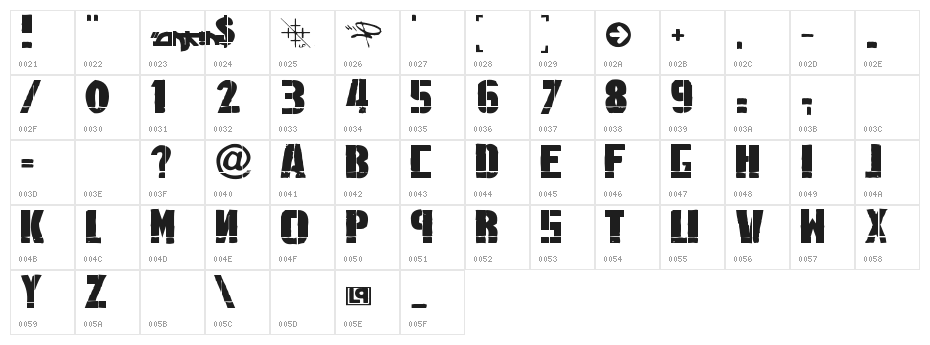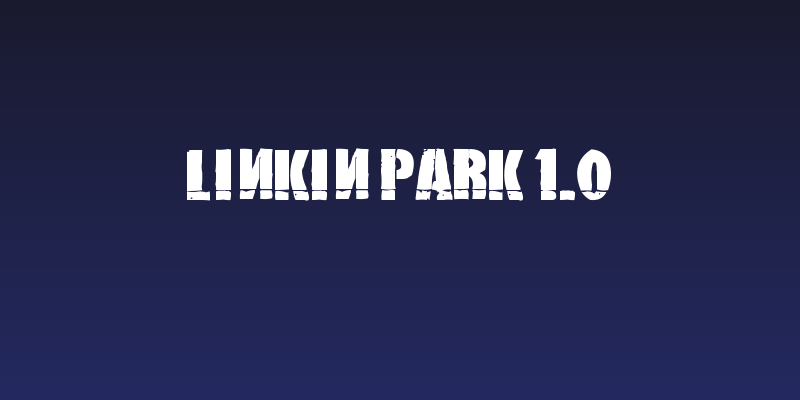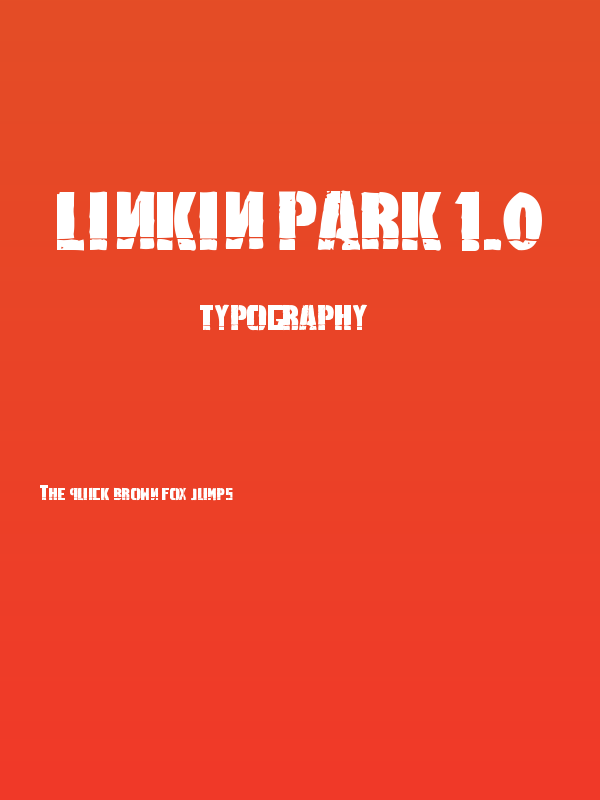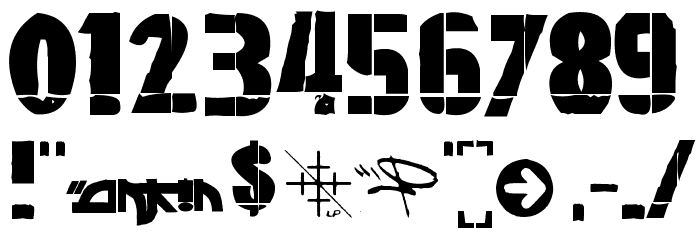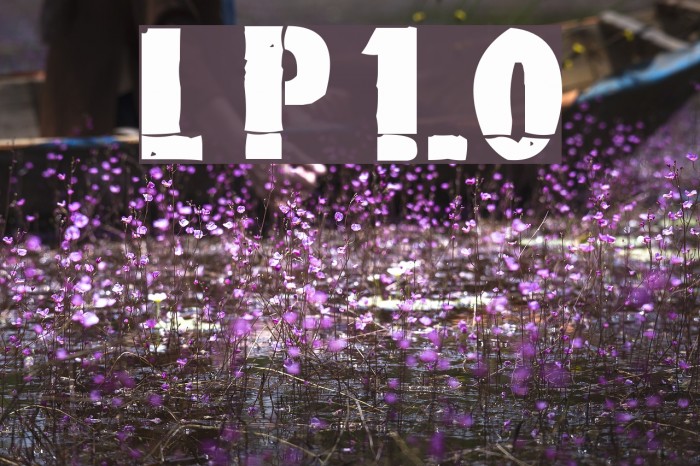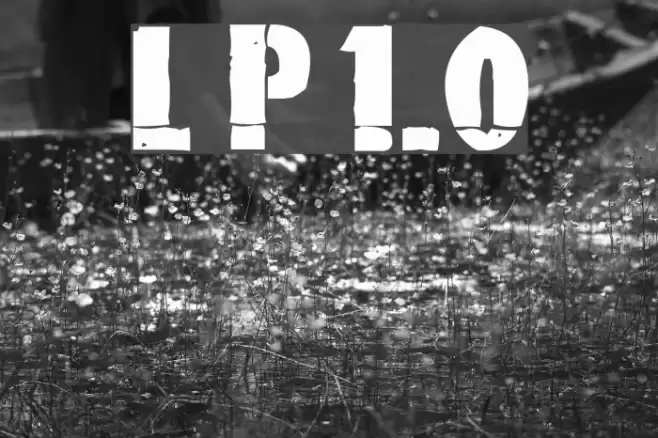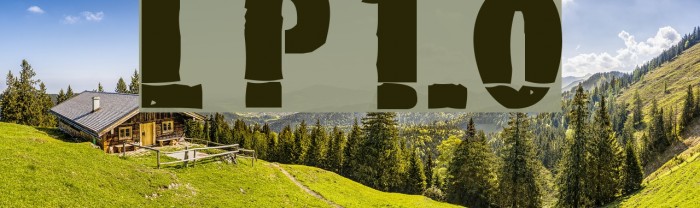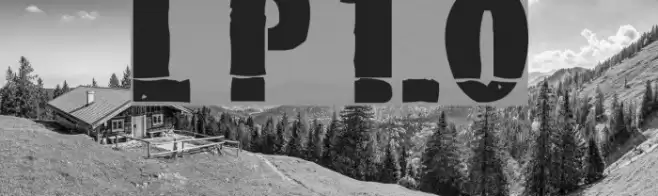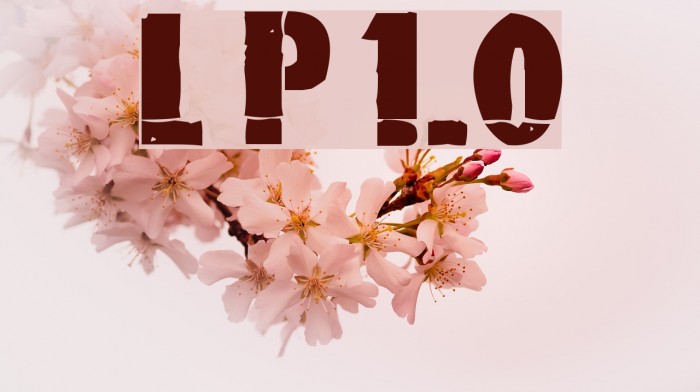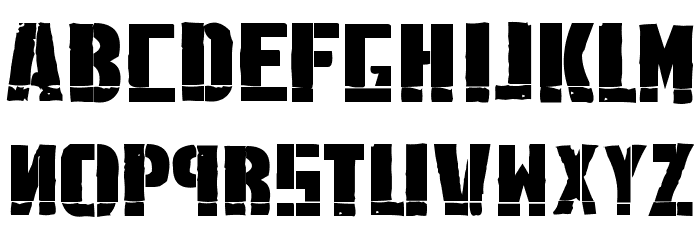
Linkin Park 1.0 Font
Linkin Park 1.0 Description
This font features a bold, distressed style with a stencil-like appearance. The characters are heavily fragmented, giving a rugged and edgy look. The uppercase and lowercase letters share a similar design, emphasizing a uniform, impactful presence. Numbers and special characters maintain the same distressed aesthetic, enhancing the overall theme. The font's unique style makes it ideal for projects that require a strong, rebellious, or industrial feel. Its fragmented design suggests a sense of movement and energy, making it suitable for dynamic and creative applications.
| Overall Style | Modern, Edgy |
| Proposed Projects | Ideal for music album covers, posters, streetwear branding, and urban-themed designs. |